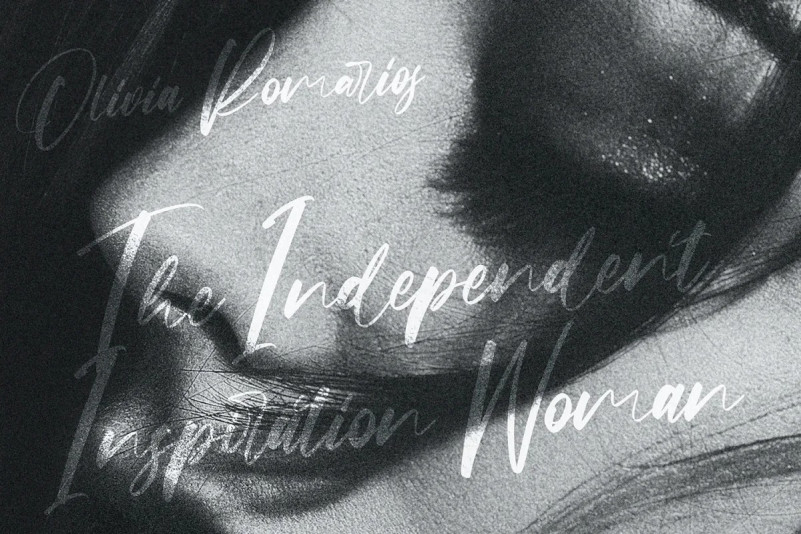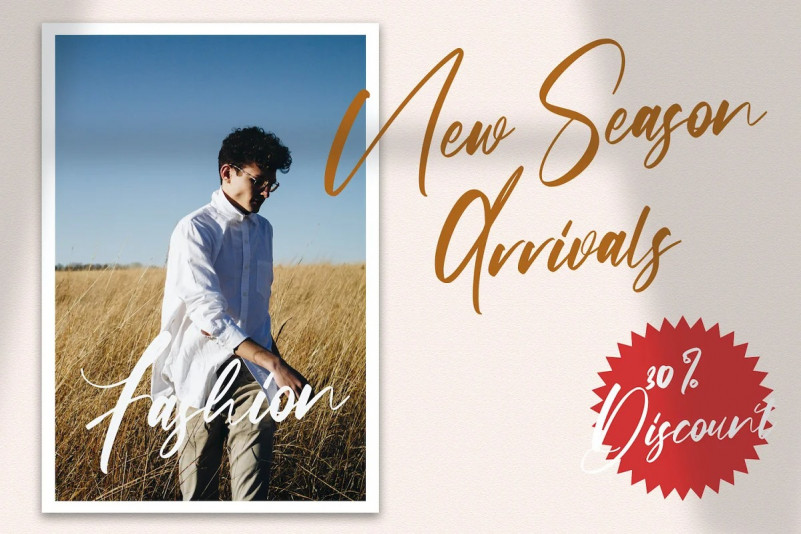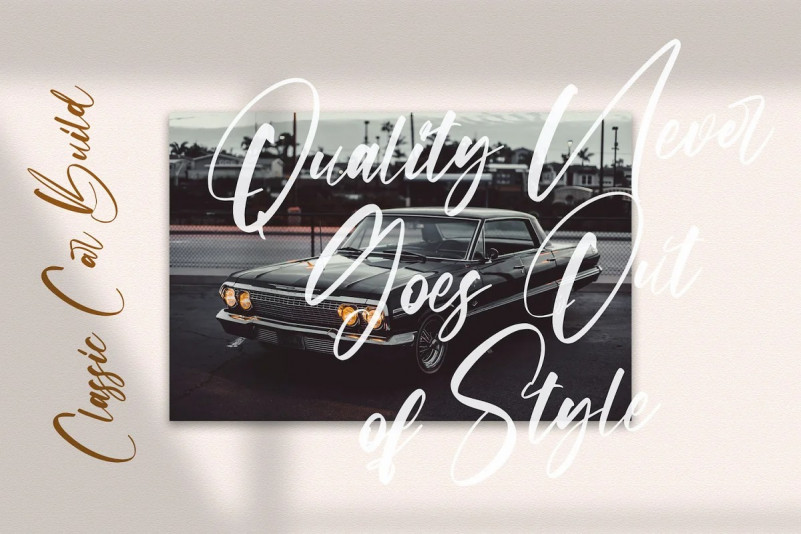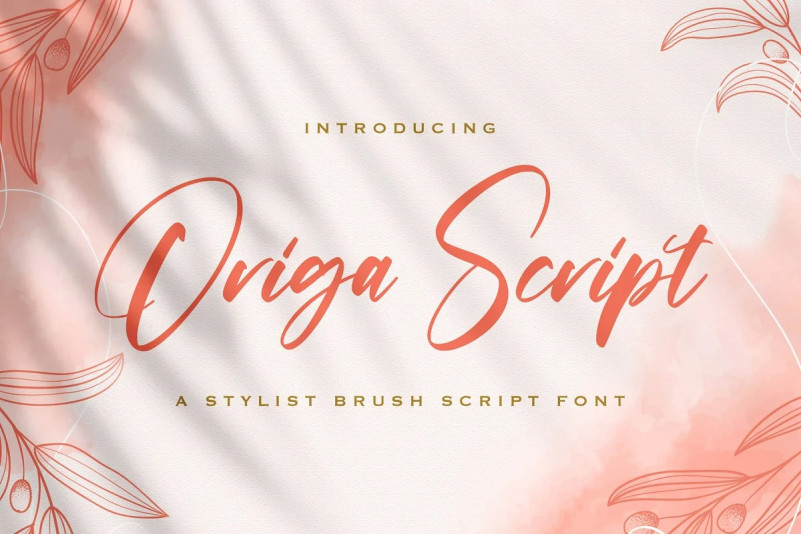
Origa Script Font
This is a handwritten classy script Typeface manufactured by StringLabs. It has beautiful and well balanced characters and as a result, it matches a wide pool of designs. Add it to your most creative ideas and notice how it makes them come alive!